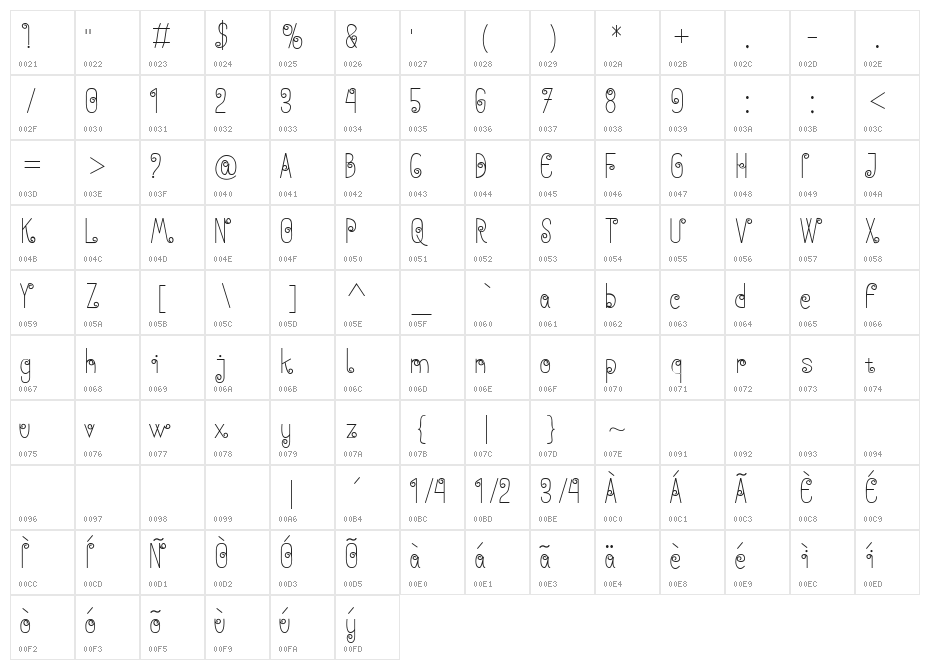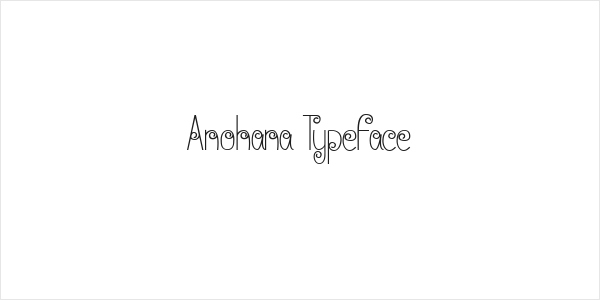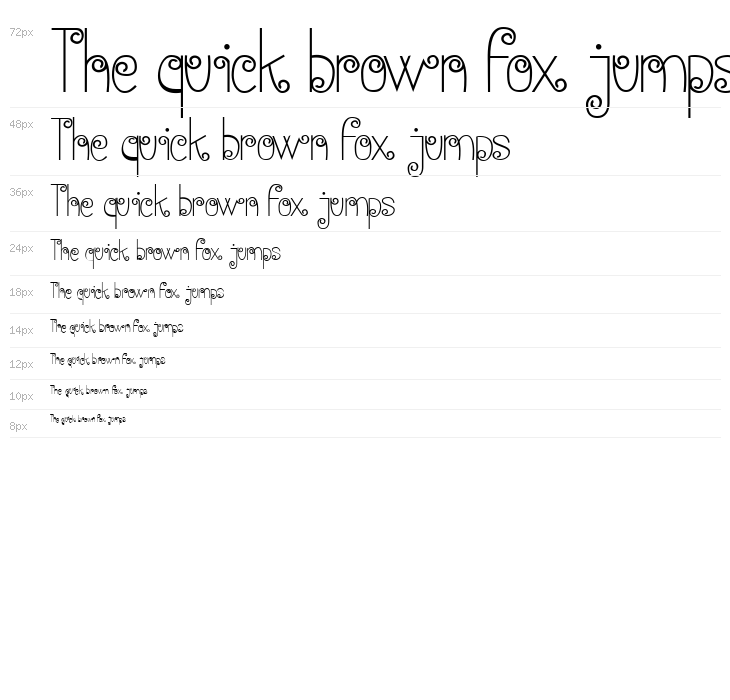
Anohana Typeface Font
Anohana Typeface Description
This whimsical typeface features a playful and decorative style, characterized by its unique spiral and curl elements integrated into the letterforms. The uppercase letters are tall and slender, with distinctive curls that add a touch of elegance and fun. The lowercase letters mirror this style, maintaining a consistent whimsical theme throughout. Numbers and special characters are designed to complement the overall aesthetic, making this font ideal for creative and artistic projects. Its distinct personality makes it stand out, perfect for designs that require a touch of creativity and flair.
| Proposed Projects | Ideal for children's books, greeting cards, playful branding, and artistic posters. |